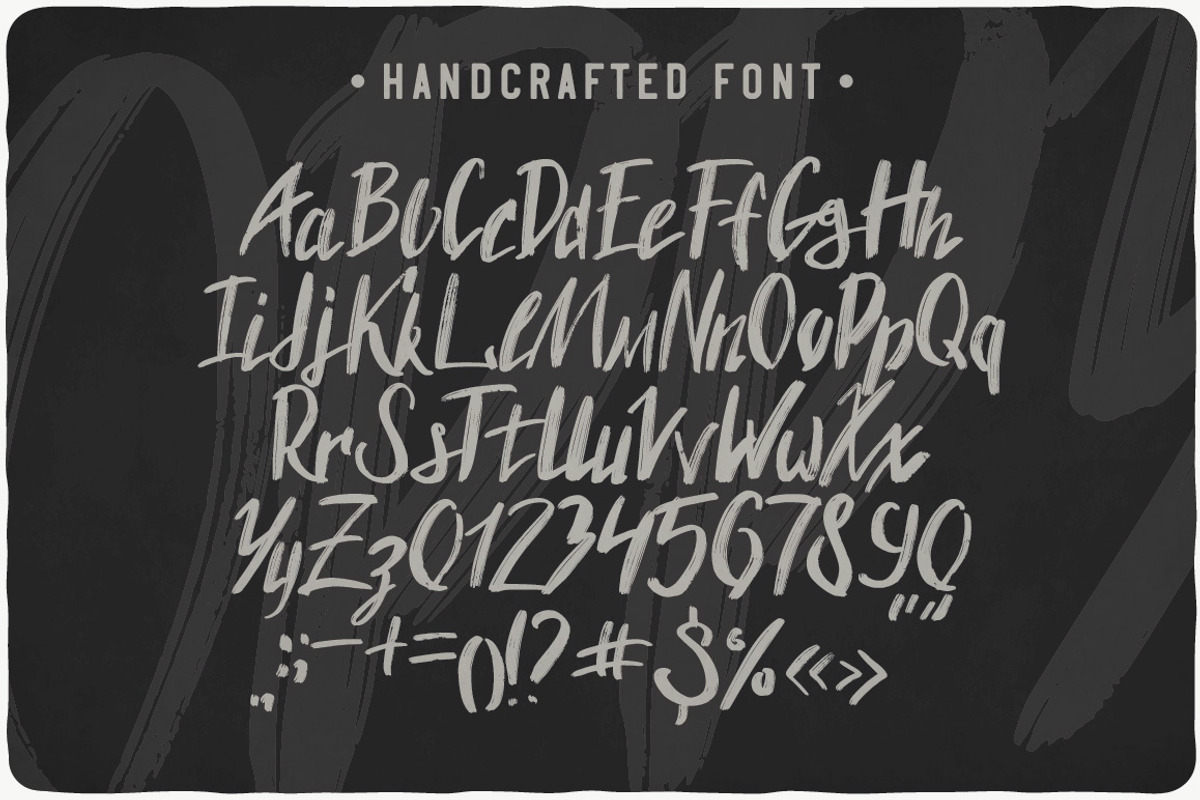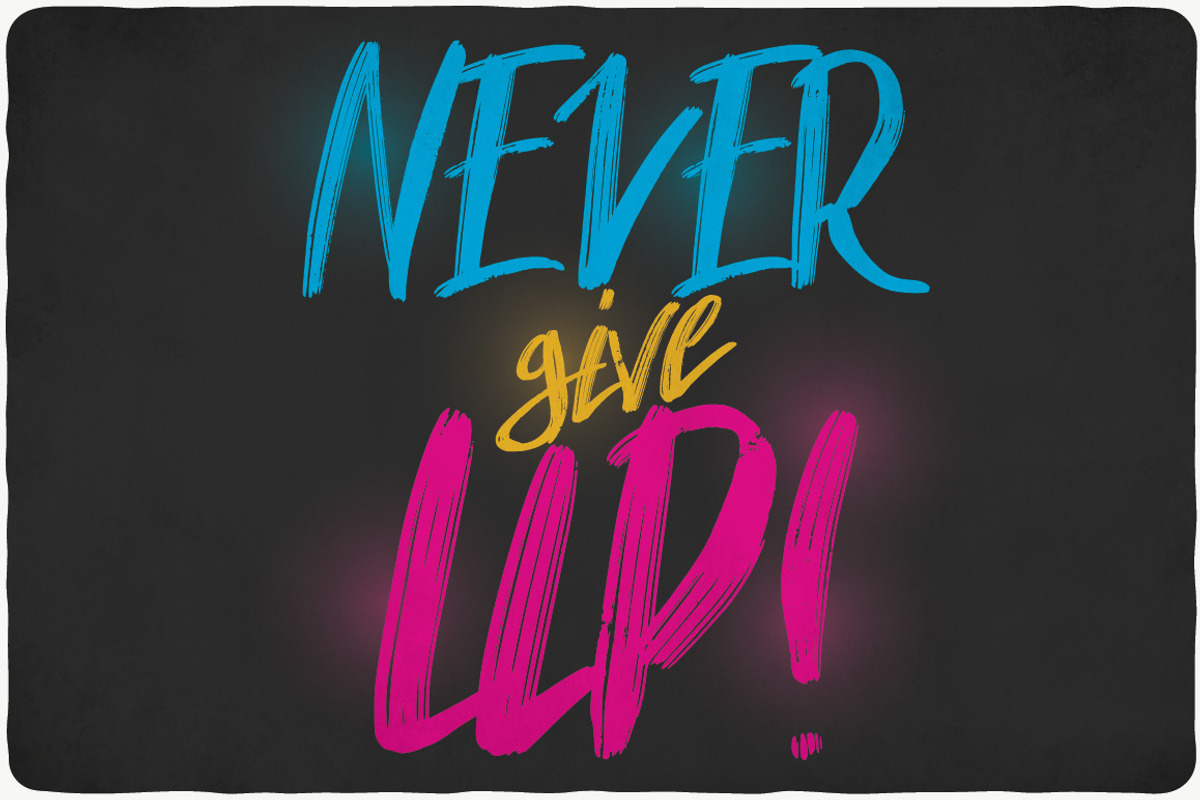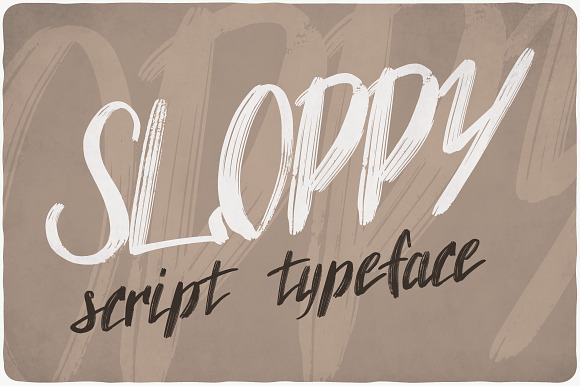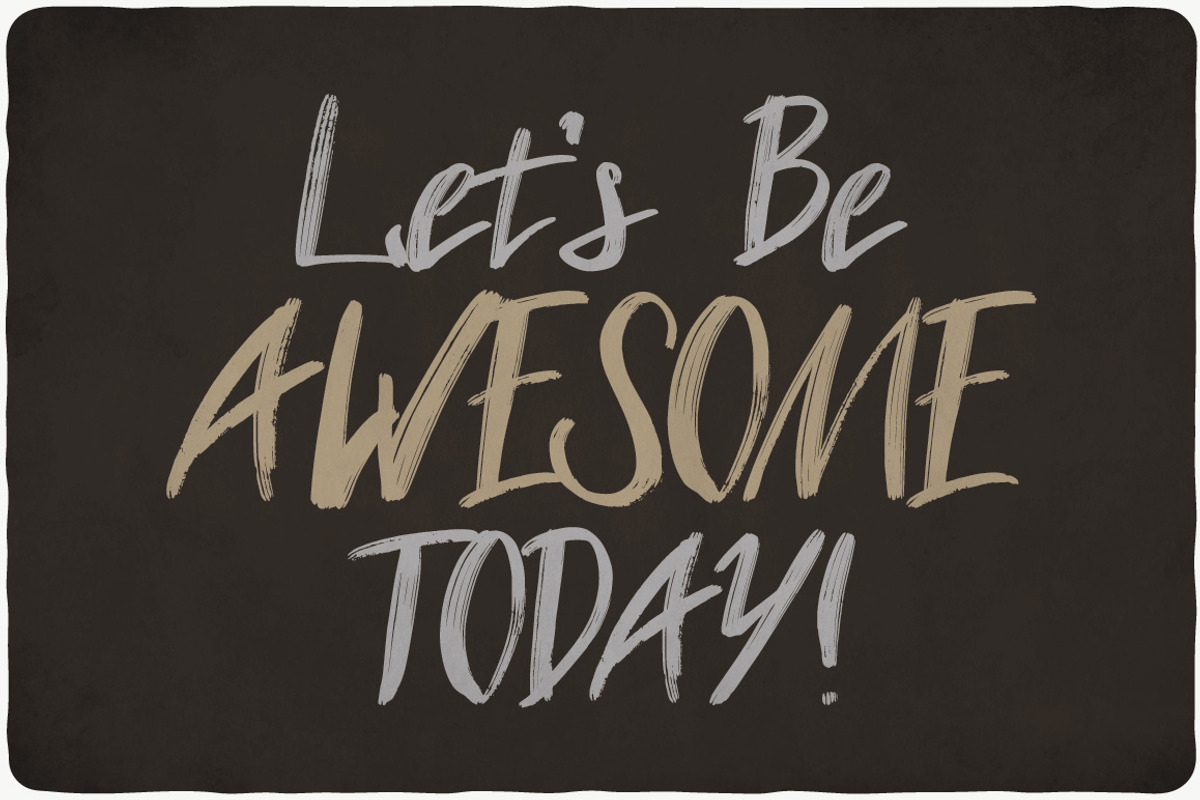
Sloppy Handcrafted Font
Introducing a handcrafted typeface named "Sloppy". Good font to make your design look like as hand made.
Why Sloppy Handcrafted Font is worth a look
Sloppy Handcrafted Font by VozzyStock fits naturally into Branding, posters, packaging, typography.